Looking for a professional display christmas font to refresh your design library? This extensive collection of 27 styles covers everything from vintage charm to modern minimalism. Enhance your invitations or branding with these premium choices I have selected.
Top Christmas Display Fonts to Transform Festive Graphics
Holiday visuals require a distinct spark to stand out in crowded feeds and digital storefronts. Traditional seasonal typography often feels predictable, but high-impact display lettering changes the entire dynamic of a festive campaign.
This curated selection highlights 27 striking display typefaces built around playful letterforms, dramatic festive flourishes, and bold holiday aesthetics. From vibrant social graphics to custom seasonal merchandise, these letterforms inject immediate holiday cheer directly into modern content.
1. Amour Christmas: Your Go To Festive Display Typeface
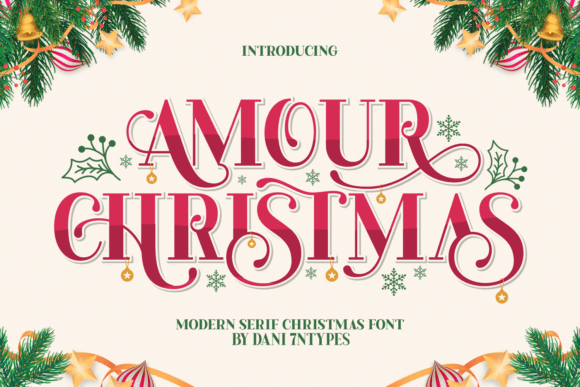
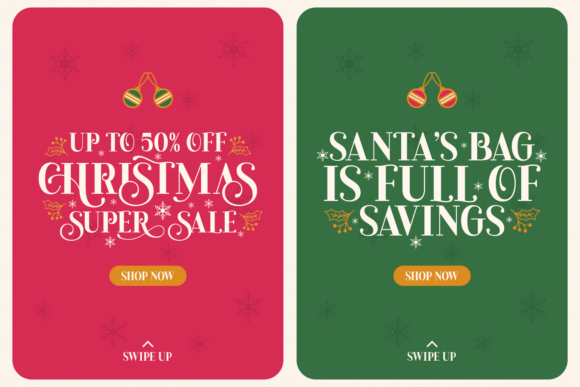
I immediately noticed how Amour Christmas balances luxury with holiday cheer. This display christmas font uses whimsical swashes and playful ornaments to create a look that is both elegant and festive. It is an ideal choice for Christmas cards, branding, and social media posts where you want your text to truly pop.
I love that this typeface is PUA-encoded, making it incredibly easy to access those beautiful alternate characters. You can use it for seasonal packaging or holiday invitations to give your projects a professional, high-end finish. The blend of classic serif bases with decorative flair ensures your message feels magical every time.
2. Merry Christmas Font: Nostalgic Vibes For Designs
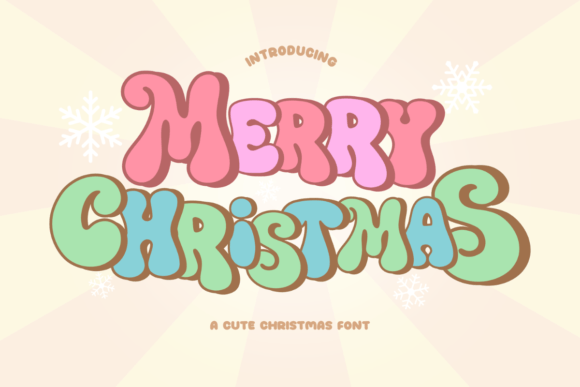
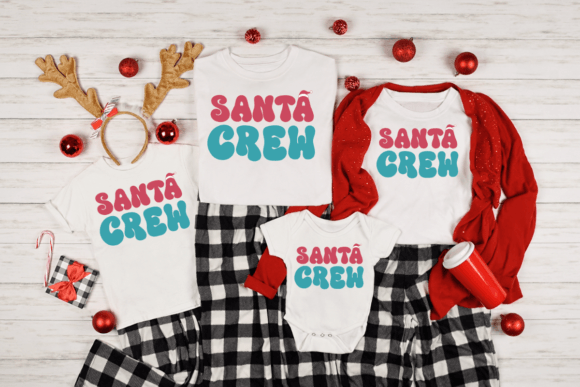
When browsing for a bubbly, retro-inspired aesthetic, Merry Christmas Font immediately stands out as a charming display christmas font. I love how its thick, rounded letters give off a nostalgic 70s vibe while remaining perfectly festive. It is my top pick for creating greeting cards, banners, and social media graphics that need to feel soft, friendly, and approachable.
Beyond its cute appearance, this typeface excels in readability for larger formats. I think it works wonderfully for marketing materials or even family t-shirt designs because it spreads genuine warmth without being too formal. Its playful curves make every word feel like a celebration, ensuring your holiday projects capture that specific “Santa’s crew” joy.
3. Christmas Beautiful: Playful Typography For Winter Cards
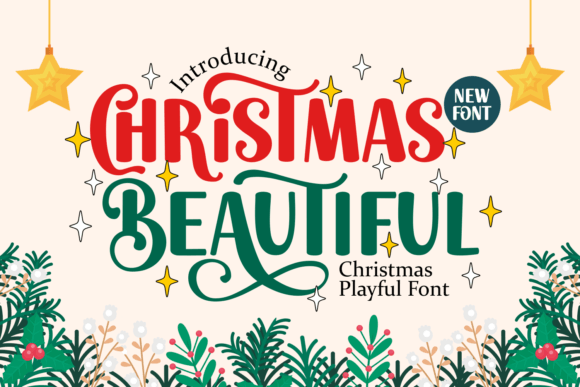
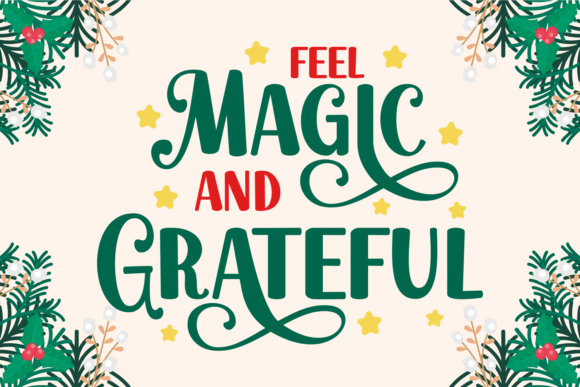
I love how Christmas Beautiful instantly brings a whimsical energy to the screen. This display christmas font is packed with enchanting swashes and playful curves that make any holiday text feel alive. It is a fantastic choice for Christmas cards, holiday decorations, and DIY seasonal crafts where you want to spread pure joy through every letter.
I appreciate that this typeface is PUA encoded, giving me effortless access to all those stunning glyphs and ligatures without any technical headaches. Use it for party invitations, festive posters, or even personalized gift tags to add that extra touch of holiday magic. It feels remarkably handcrafted, making your winter projects feel both warm and professional at the same time.
4. Christmas Grinch Font: Stand Out With Edgy Holiday Vibes
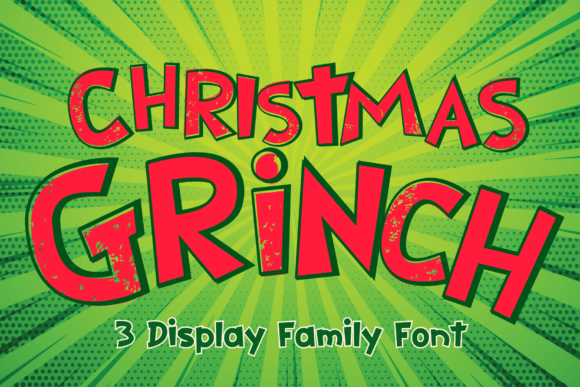
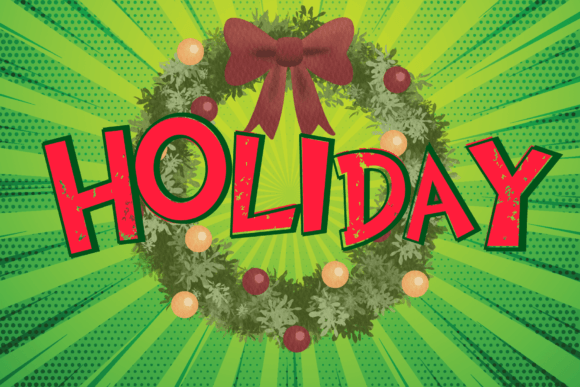
Capturing the mischievous side of the holidays is easy with Christmas Grinch. This display christmas font brings a unique, hand-drawn authenticity to the table that feels both playful and slightly edgy. It is my go-to choice for blog posts, logos, and branding projects that need to break away from traditional, overly sweet seasonal styles.
The jagged, energetic lines make it stand out beautifully in ads or invitations. I personally love using it for greeting cards, planners, and photo albums because it adds a punch of personality that standard fonts lack. Whether you are working on decorations or digital assets, this typeface ensures your results are anything but boring.
5. Christmas Font: Hand Lettered Style For Seasonal Invitations
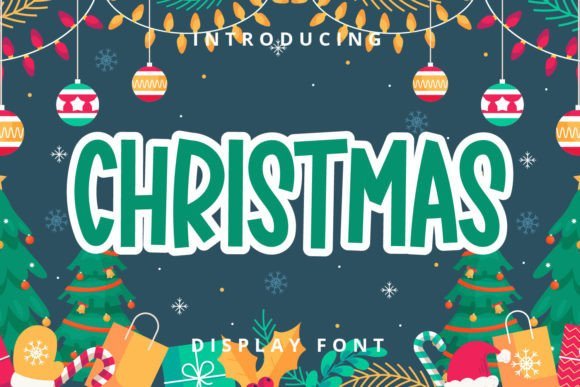
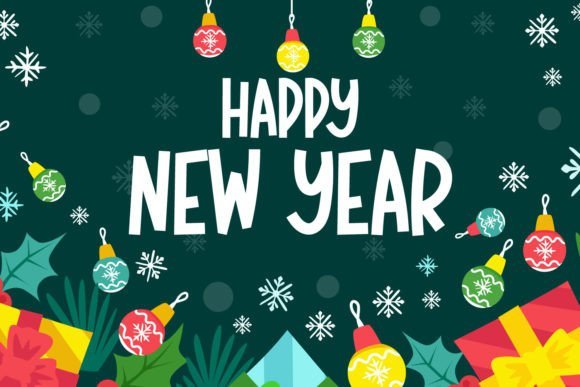
I simply couldn’t resist adding Christmas to my digital toolkit because of its tall, friendly letterforms. This display christmas font has a hand-lettered quality that makes any project feel instantly more personal and inviting. It is a fantastic choice for greeting cards, seasonal blog headers, and festive social media graphics where you want to strike a balance between neatness and holiday spirit.
I appreciate how this typeface remains perfectly legible even when used for longer phrases. You can use it for holiday party invitations, custom labels, or New Year posters to give your designs a cohesive, joyful look. Its clean lines make it a versatile asset that easily adapts to both digital and print materials, ensuring your winter creations look polished and professional.
Final Thoughts
With these 27 professional options, your font library is now ready for any winter challenge. Every display christmas font mentioned here offers a unique way to communicate festive joy. Use them to bring a premium, polished look to your branding and projects.